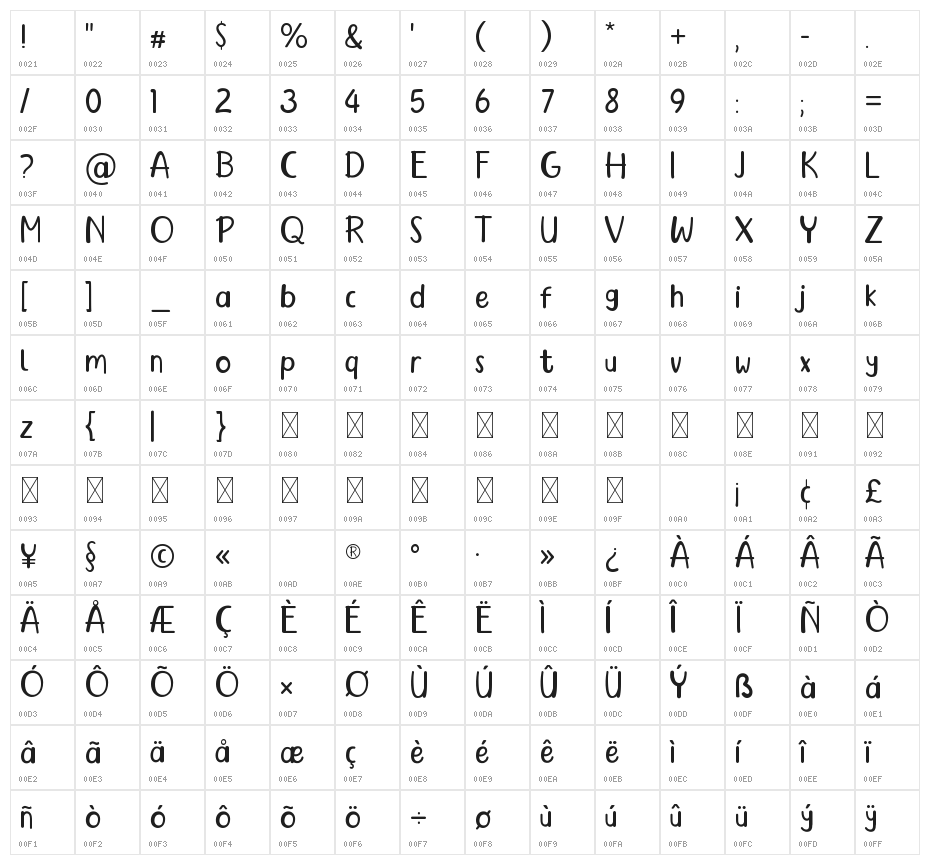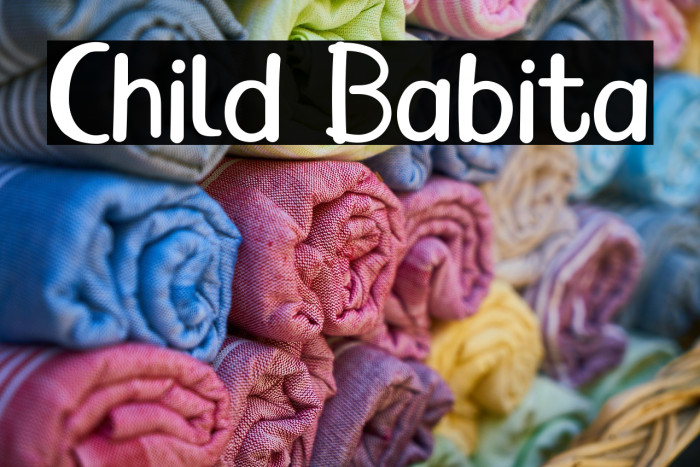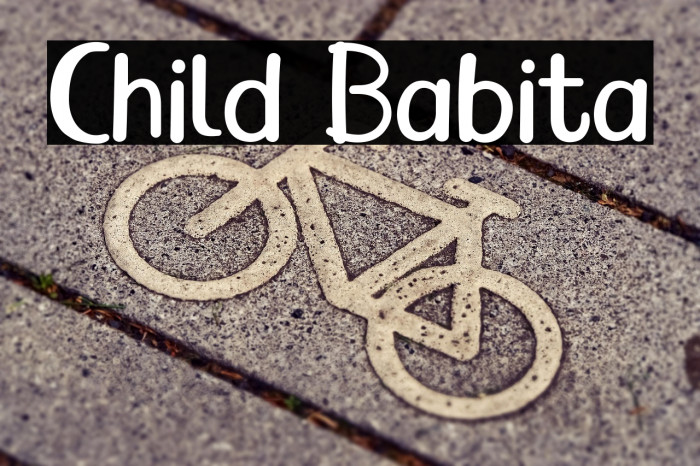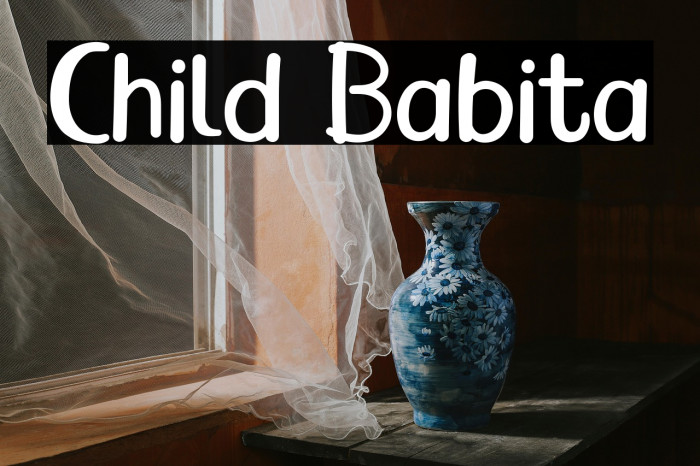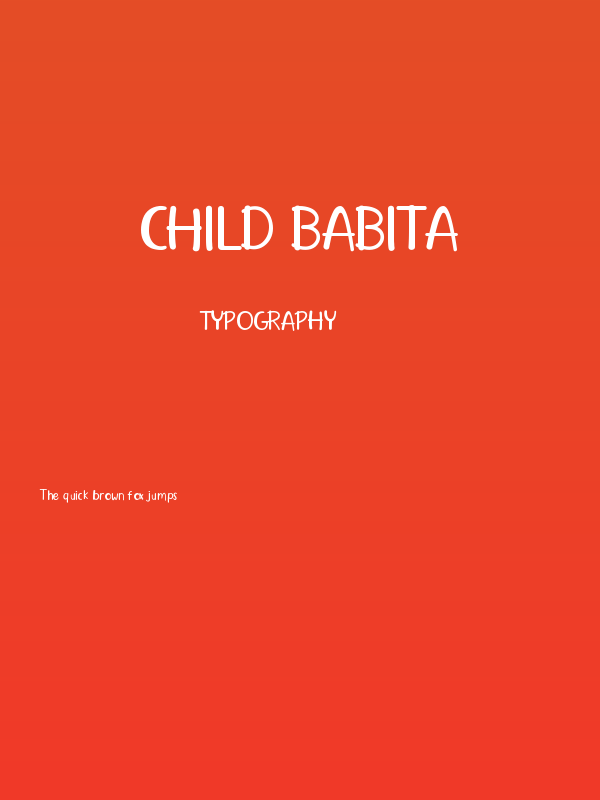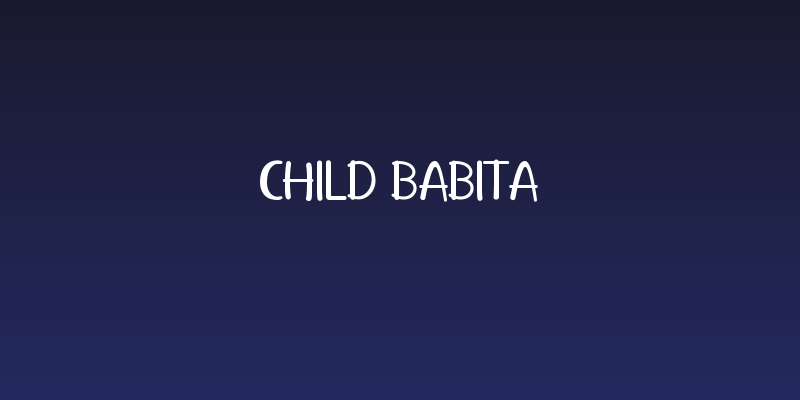
Child Babita Font
Child Babita Description
This playful and whimsical font features rounded, smooth edges and a hand-drawn aesthetic, giving it a friendly and approachable appearance. The characters are slightly irregular, adding to its charm and making it ideal for informal and creative projects. The uppercase letters are bold and prominent, while the lowercase letters maintain a consistent flow with a slight bounce, enhancing its playful nature. The numerals and special characters are equally well-crafted, maintaining the overall style and ensuring versatility in various design applications.
| Proposed Projects | Ideal for children's books, playful branding, greeting cards, and creative posters. |